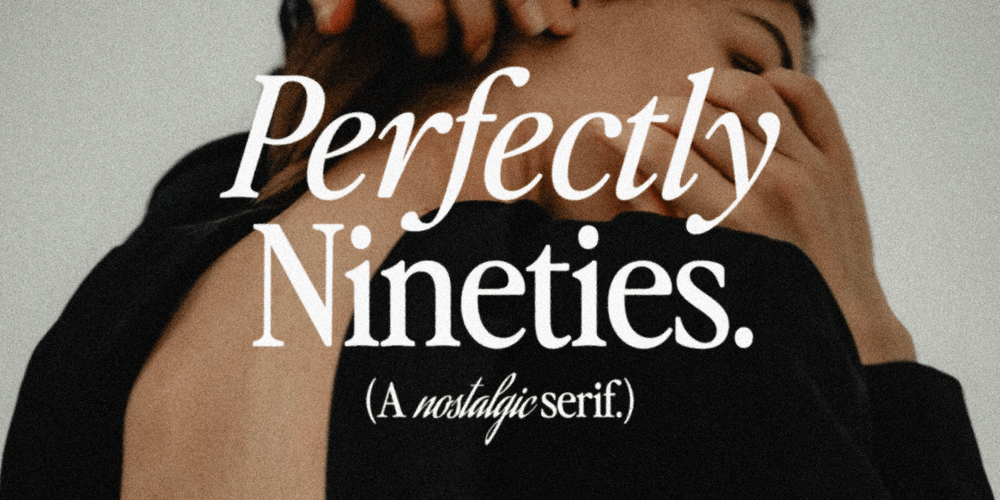
Perfectly Nineties Font Family was designed by Jen Wagner and published by Jen Wagner Co.. Perfectly Nineties contains 2 styles and family package options. Introducing Perfectly Nineties – a brand new serif with all the nostalgic vibes!I’ve started seeing classic, tightly spaced serifs of the 80s & 90s making a comeback, and wanted to create the perfect one for you too!Perfectly Nineties is a beautifully nostalgic upper and lowercase typeface that looks incredible in both large and small settings as a display and body text.It’s gorgeous used on its own, or paired as you see above with Aguafina Script (free from Google Fonts: https://fonts.google.com/specimen/Aguafina+Script )One thing to note about Perfectly Nineties is the letter spacing. It was intentionally spaced for clean reading if you wanted to use it for body type, so I recommend setting the spacing a little tighter for display use (around -20 should do!).